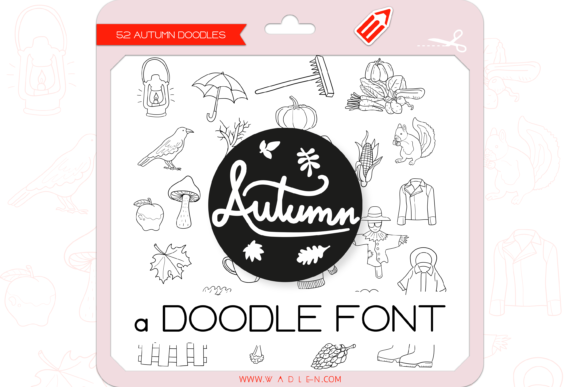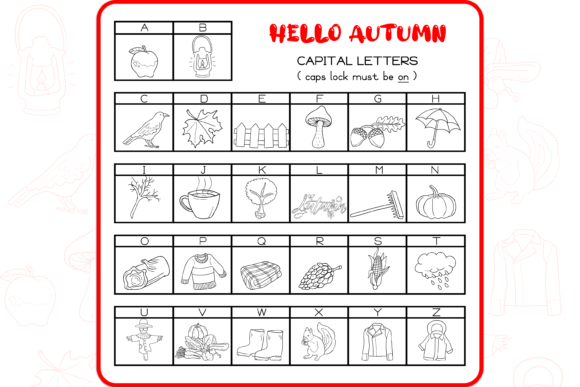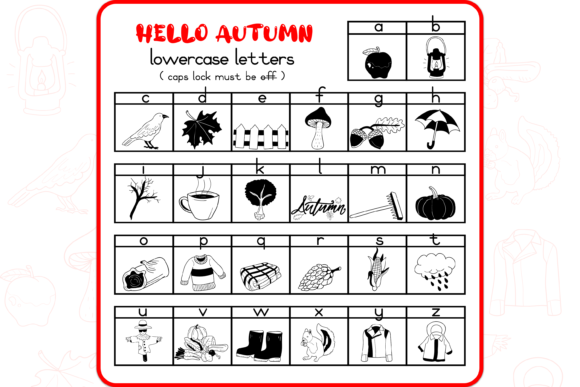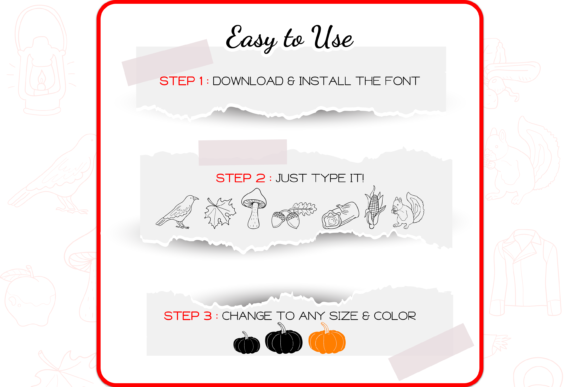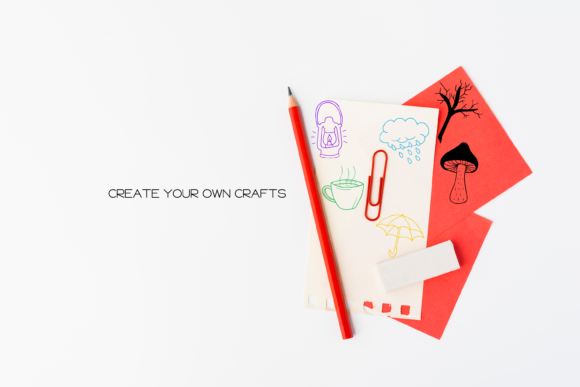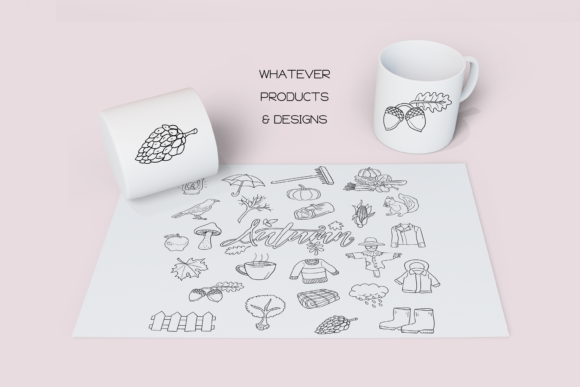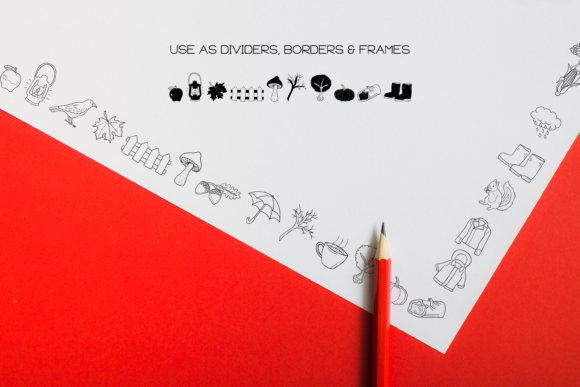
Autumn Font
About Autumn Font
Absolutely! Autumn is a unique and interesting dingbats font that will add a touch of seasonal charm to your creative ideas. With its collection of autumn-themed doodles, this font is perfect for capturing the essence of fall in your designs. Here are some ways you can use the Autumn font to make your creations stand out:
1. Fall-Themed Invitations: Design eye-catching invitations for fall-themed events using the Autumn font. Incorporate the autumn-themed doodles as decorative elements, borders, or dividers to create a warm and inviting atmosphere. Whether you’re creating invitations for a harvest festival, a cozy gathering, or a Thanksgiving celebration, the Autumn font will bring a touch of seasonal beauty to your designs.
2. Seasonal Prints and Posters: Create stunning prints and posters inspired by the colors and elements of autumn using the Autumn font. Use the doodles to complement your typography or as stand-alone design elements. Whether you’re designing wall art, seasonal greetings, or promotional materials for autumn events, the Autumn font will add a unique and captivating touch to your designs.
3. Autumn-Themed Scrapbooking: Enhance your scrapbooking projects with the Autumn font. Use the doodles to embellish your photo layouts, journaling, or page dividers. Whether you’re documenting a memorable fall trip, capturing the beauty of changing leaves, or preserving autumn memories, the Autumn font will add a whimsical and nostalgic feel to your scrapbook pages.
4. Social Media Graphics: Make your social media posts and graphics stand out with the Autumn font. Incorporate the autumn-themed doodles as decorative elements or icons to enhance your visual content. Whether you’re sharing fall recipes, promoting seasonal sales, or simply celebrating the beauty of autumn, the Autumn font will add a touch of seasonal flair to your designs.
5. Cozy Home Decor: Create cozy home decor items using the Autumn font. Use the doodles as stencils for DIY projects like fall-themed wall art, pillow covers, or tablecloth designs. The Autumn font will bring a warm and inviting ambiance to your home decor, making it perfect for the fall season.
6. Seasonal Branding: Infuse your brand with the colors and spirit of autumn using the Autumn font. Incorporate the autumn-themed doodles into your logo, packaging, or marketing materials to create a cohesive and seasonal brand identity. Whether you’re a coffee shop, a fashion brand, or a nature-inspired business, the Autumn font will help your brand stand out with its unique and captivating style.
Remember to explore different combinations of the Autumn font, other typography, and color schemes to create visually appealing and cohesive designs. Let the font’s unique and seasonal elements inspire your creativity and make your creations truly stand out in the fall season!